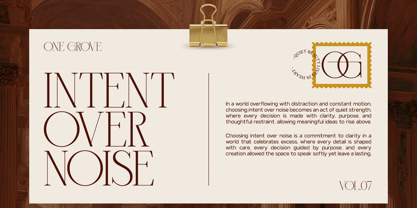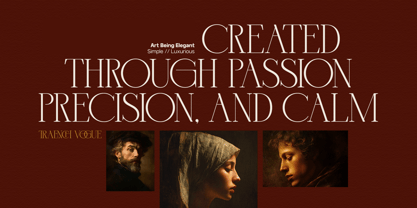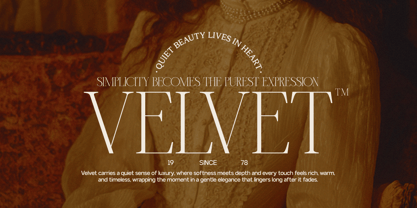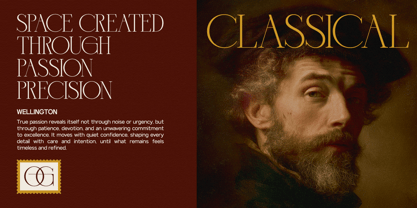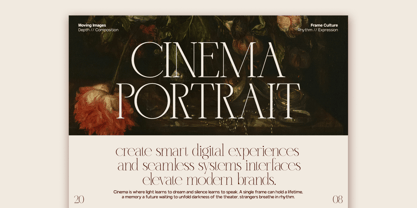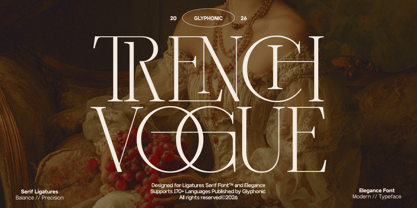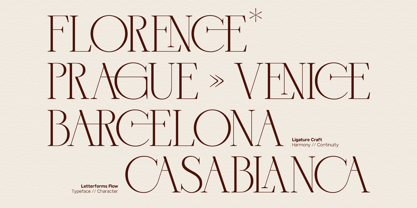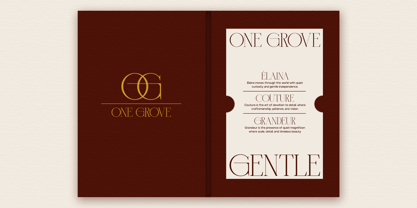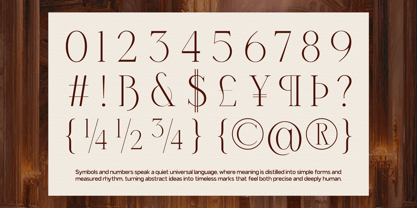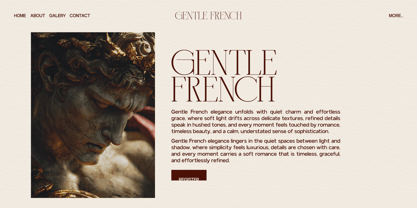
GC Trench Vogue
The GC Trench Vogue Font Family was designed by Muhammad Hafiizh Solana and published by Onyx Studio. GC Trench Vogue contains 2 styles and family package options. More about this family
GC Trench Vogue – Chic Elegant Serif is a sophisticated serif typeface designed to capture the essence of modern fashion and timeless elegance. With refined curves, graceful contrast, and carefully balanced proportions, this font delivers a chic and confident voice that elevates any visual composition. Inspired by high-fashion editorials and luxury branding, GC Trench Vogue is perfect for fashion magazines, beauty packaging, boutique branding, elegant logos, and premium visual identities. Its delicate yet distinctive letterforms create a harmonious blend of modern style and classic sophistication. Thoughtfully crafted for clarity and versatility, GC Trench Vogue works beautifully across both digital and print media. Whether used for stylish headlines, editorial layouts, or refined branding, this typeface adds a touch of glamour and elegance to every design. Features: Uppercase & Lowercase Numbers & Punctuation Chic Elegant Serif Construction Multilingual Support (170+ Languages) Bring fashion-forward elegance and refined beauty to your typography with GC Trench Vogue – Chic Elegant Serif.